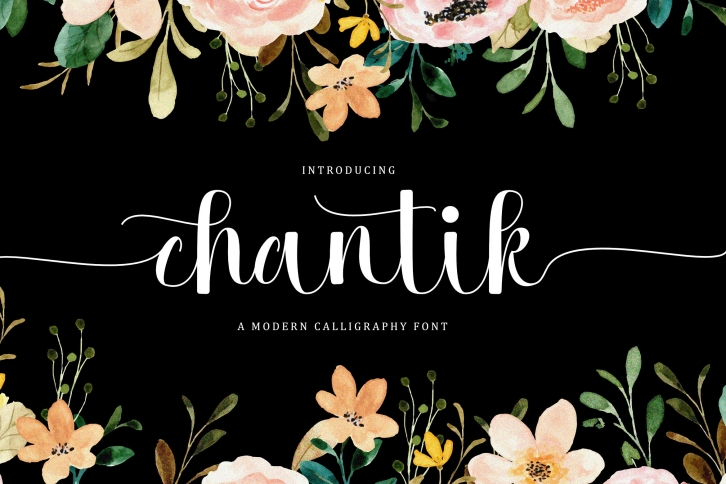
Chantik is a stylish and delicate script font. It will add a luxury spark to any design project that you wish to create! This font is PUA encoded which means you can access all of the amazing glyphs and ligatures with ease!